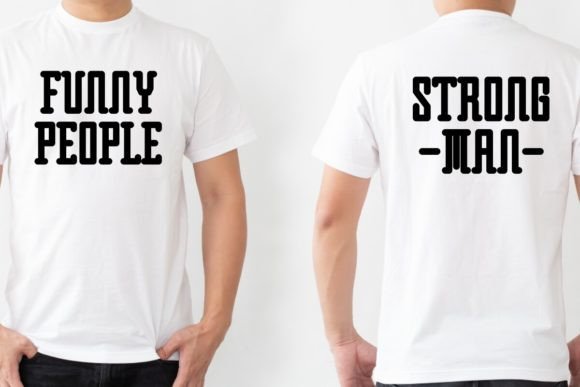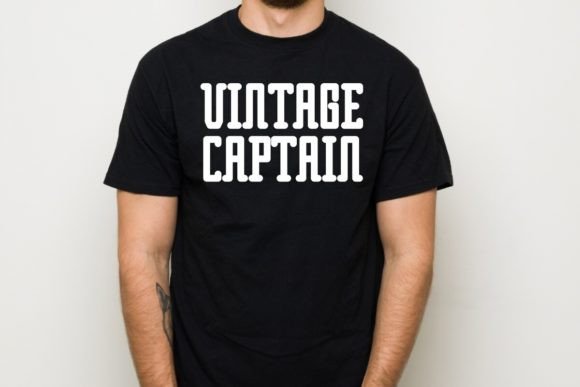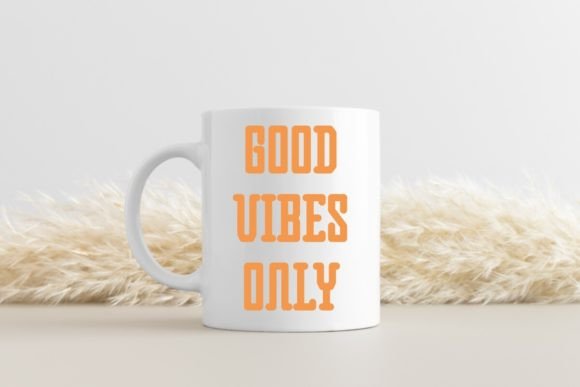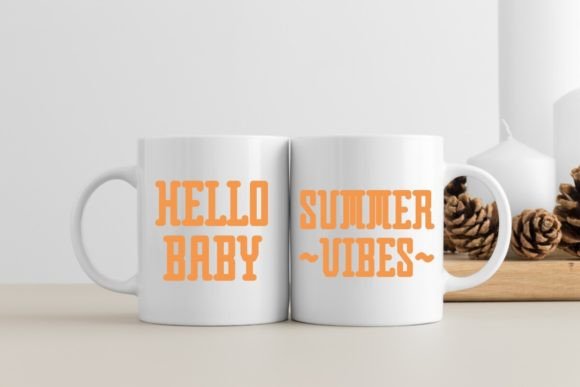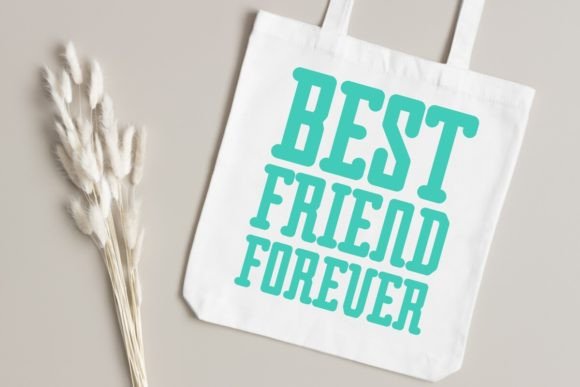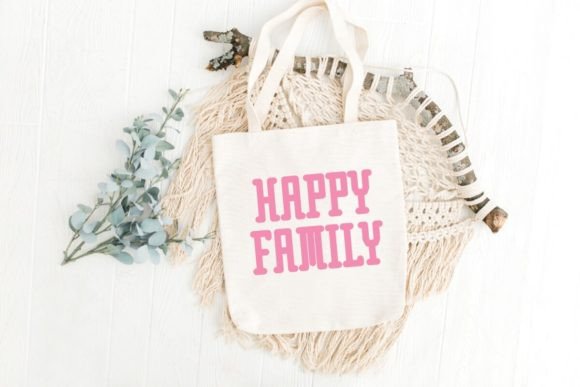
Introduction to Lasercut Font
Lasercut is a cute and playful slab serif font that brings a whimsical and joyful touch to any design, making it fantastic choice for adding a sense of fun and playfulness to your projects.
Perfect for charming posters, quotes, backgrounds, greeting cards, fun t-shirts, mugs, pillows and stylish tote bags .